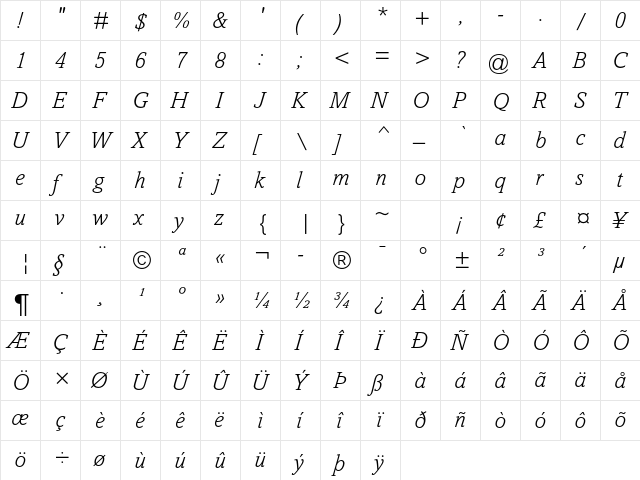
Amasis MT Std Light Italic
Design Context for Amasis MT Std Typeface
Amasis MT Std is a composed and adaptable typeface that performs quietly and consistently across a wide range of design contexts. Its italic angle brings a sense of urgency and motion to the letterforms. The delicate stroke weight brings airiness and refinement to layouts.
Pro Tip: Try Amasis MT Std for annotation and caption copy alongside an upright companion — the contrast in angle creates a dynamic but ordered typographic system.